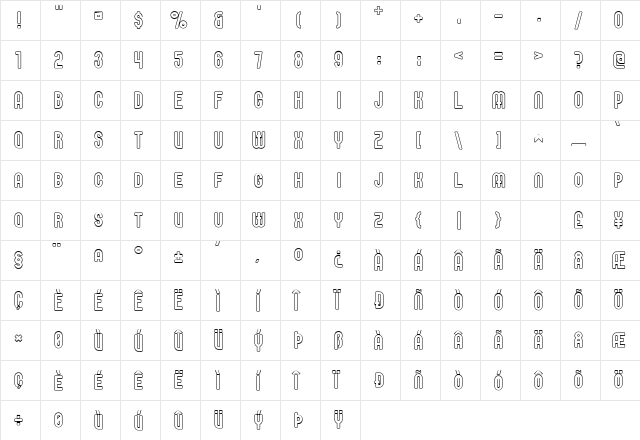
Elbaris Outline Regular
| Foundry | Peter Wiegel |
| Designer | Peter Wiegel |
Design Context for Elbaris Outline Typeface
Elbaris Outline brings ornamental detail and strong personality to headlines and identities, where visual impact matters more than quiet functionality.
Font Pairing: Pair with a clean neutral sans-serif for body copy to let Elbaris Outline's character lead without overwhelming the composition.
Pro Tip: Use Elbaris Outline exclusively at display sizes — it was designed to be seen, not read at length. Let a neutral companion handle body copy.